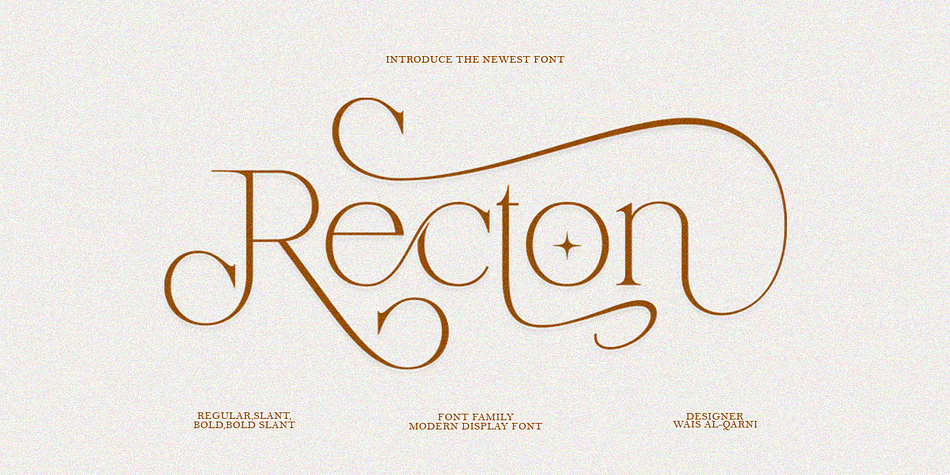
Recton Regular
Recton is a display serif font family. This typeface has four styles and was published by Ws Studio.
Recton is a classic, modern serif font inspired by classy eighties magazines with gentle curves and a sharp eye for detail that makes it a must for any project that calls for upscale.
Recton also comes with an italic version that really helps with your designs as well as lots of unique alternatives and very versatile ligatures.